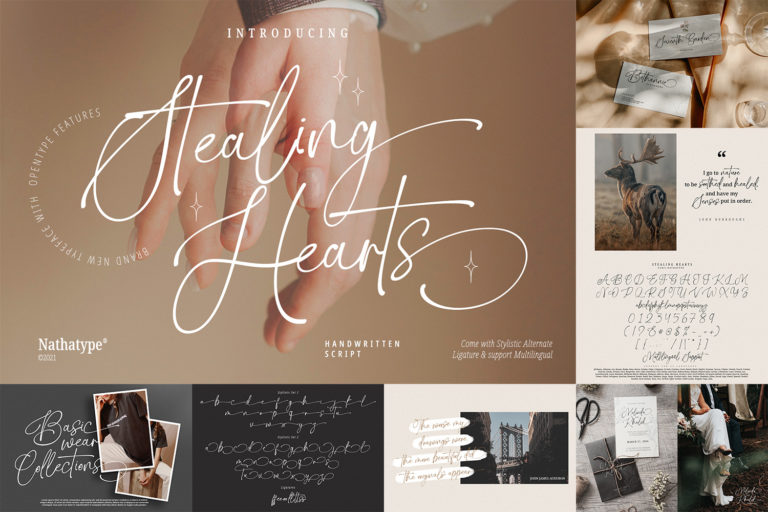
Modern Handwritten Font Bundle
Hi Everyone! Introducing Discover the artistry of handwriting in the digital age with the Modern Handwritten Font Bundle from Din Studio.
A exquisite collection that brings you a diverse selection of ten unique handwritten fonts, each with its own distinct charm and personality. The fonts can be used for a host of different content needs and projects. Create gorgeous headlines, logos, posters, product packaging, branding materials, editorial layouts and more.
The bundle includes Multilingual Support. See the previews above to get some inspiration on how you can use them.
Modern Handwritten Font Bundle included :
- Balloon Midair – https://din-studio.com/product/balloon-midair/
- Bright Sunset – https://din-studio.com/product/bright-sunset-font/
- Brighter Miracles – https://din-studio.com/product/brighter-miracles-font/
- Equestrian Style –https://din-studio.com/product/equestrian-style/
- Fresh Roomettes – https://din-studio.com/product/fresh-roomettes/
- Northern Oregon –https://din-studio.com/product/northern-oregon/
- Soft Cantle – https://din-studio.com/product/soft-cantle/
- Staying Passionate – https://din-studio.com/product/staying-passionate/
- Stealing Hearts – https://din-studio.com/product/stealing-hearts-font/
- Walnut Candy – https://din-studio.com/product/walnut-candy/